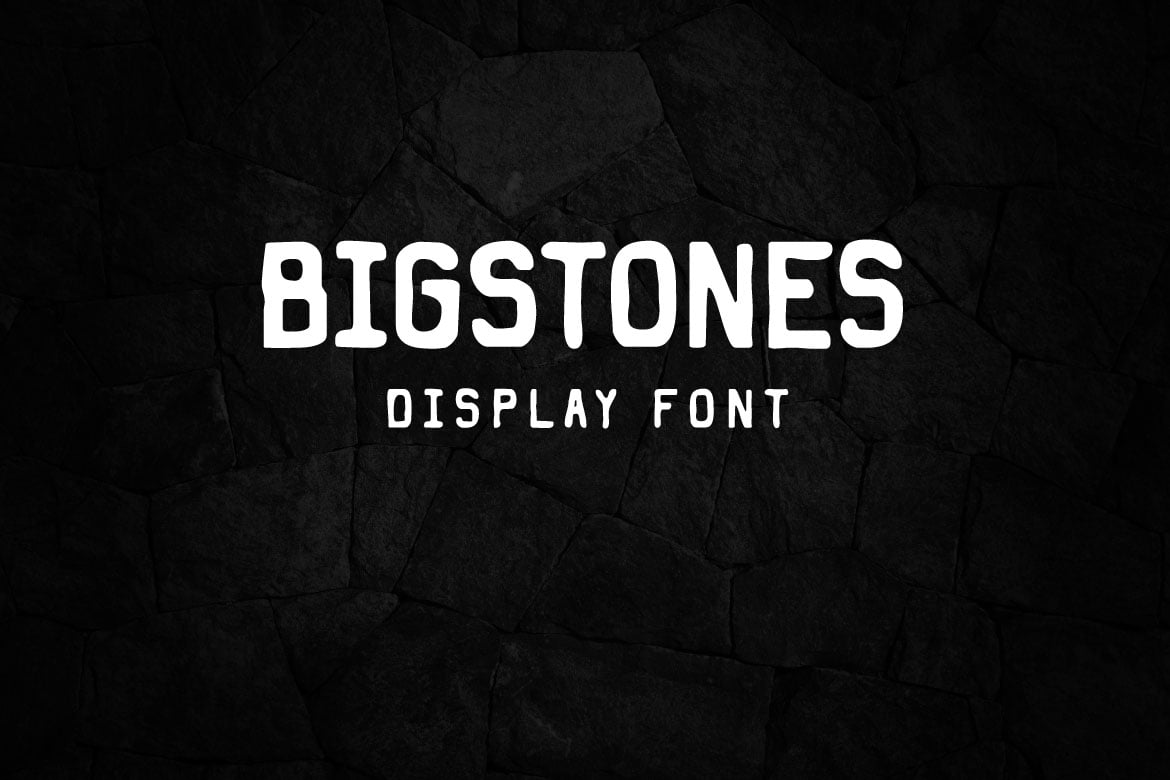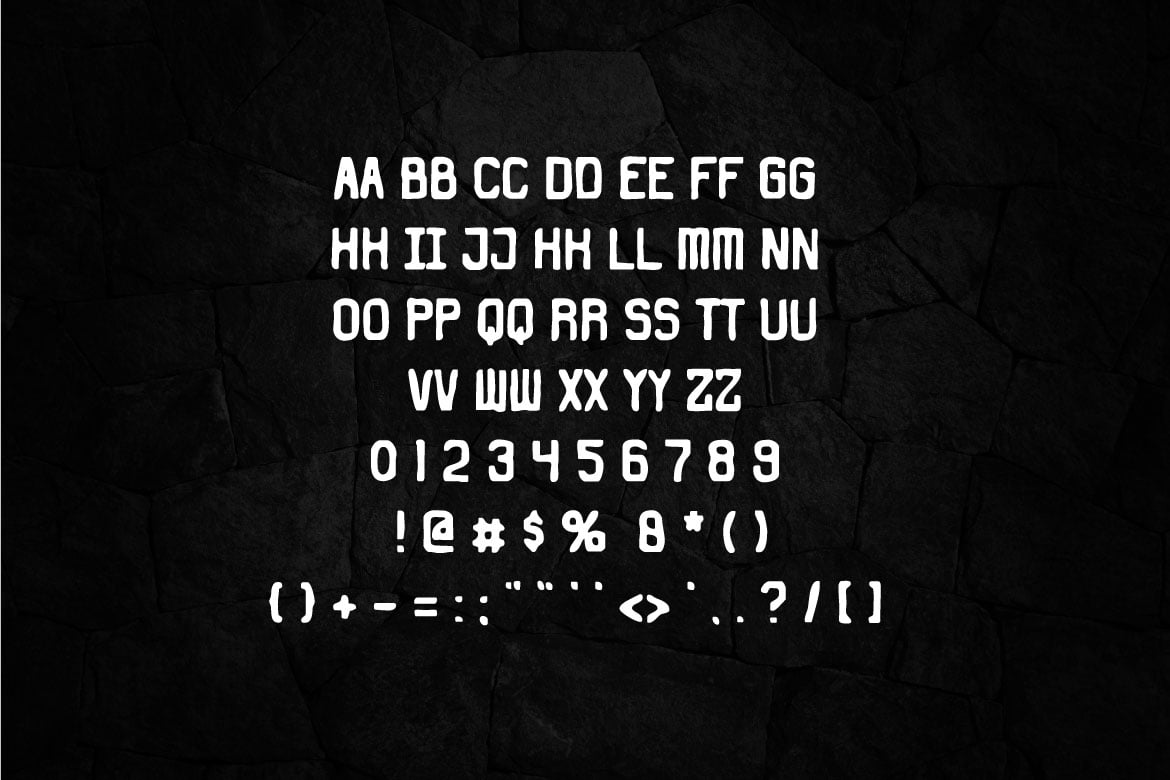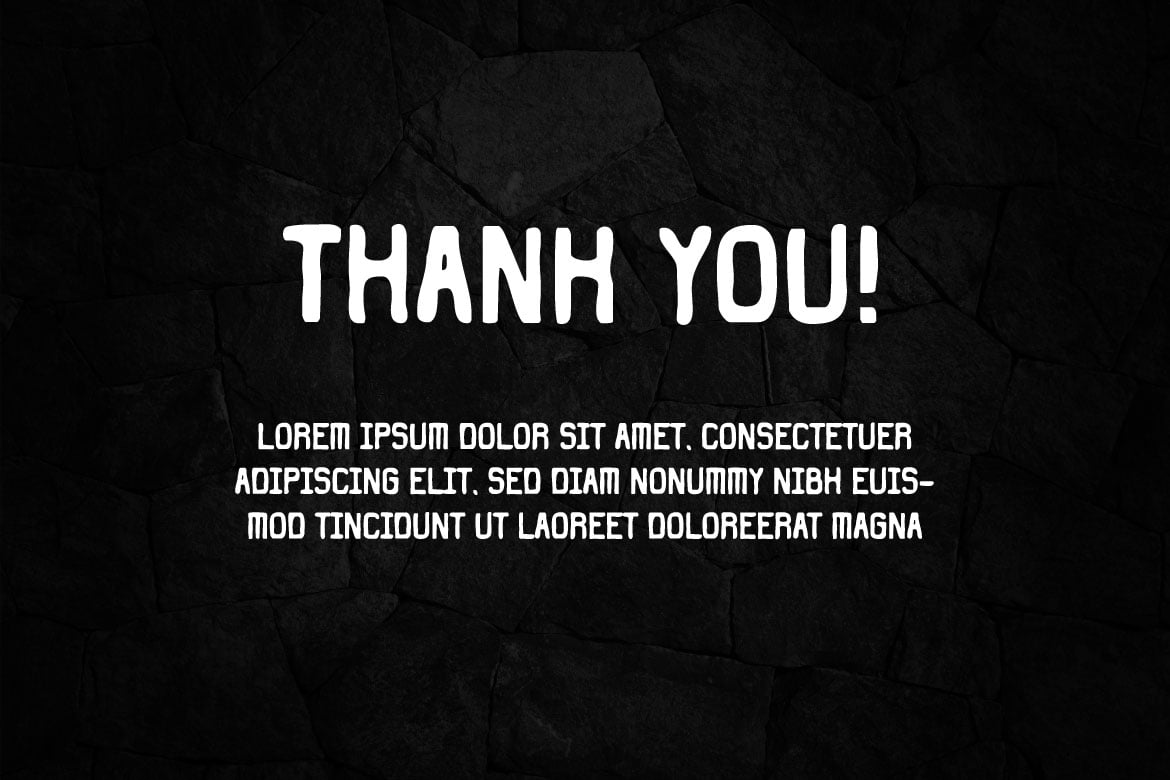
Bigstones – Display font
Bigstones is unique font. It brings a acient look with stone age style.
It suits perfectly in the funny forms, such as in the game, title of a magazine, headline, newspaper, office work, poster, book cover, logo, banner, also it can be used in any-scale artwork.